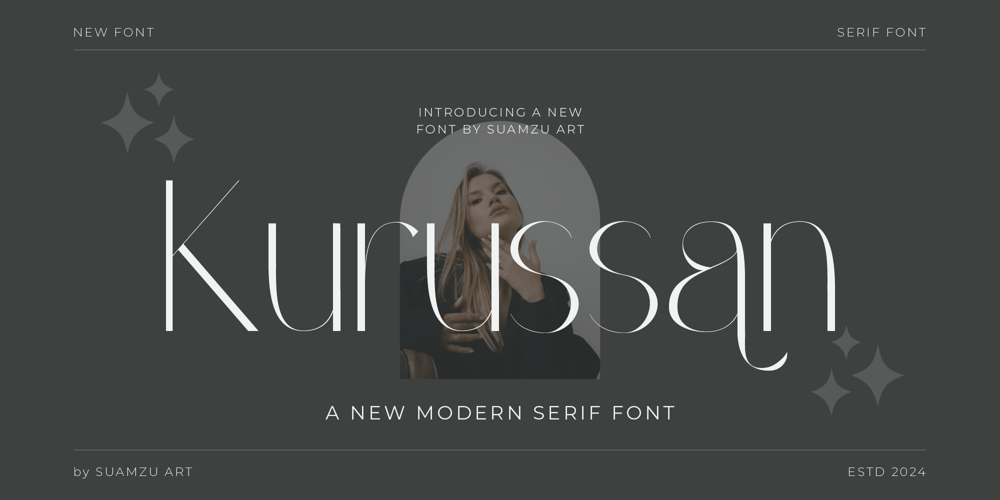
Kurussan Font Family was designed by Amrullah Medan, Amrullah and published by Ably Creative. Kurussan contains 1 styles and family package options. Kurussan Font is a minimalist serif font that offers the perfect blend of classic elegance and modern simplicity. With consistent, smooth lines and a measured serif design, Kurussan delivers an elegant look that exudes professionalism without being overdone. Equipped with several alternate letters, this font gives designers the flexibility to create unique variations in each work. Kurussan is ideal for company logos that want a clean, classy, and memorable visual identity. In brochure designs, this font provides a balance between clear readability and a clean aesthetic appearance. Meanwhile, for event branding, Kurussan presents an elegant and refined impression, making it the perfect choice for design projects that require a minimalist yet captivating touch. Kurussan Font is a top choice for designers who prioritize simple and consistent beauty in every visual element.